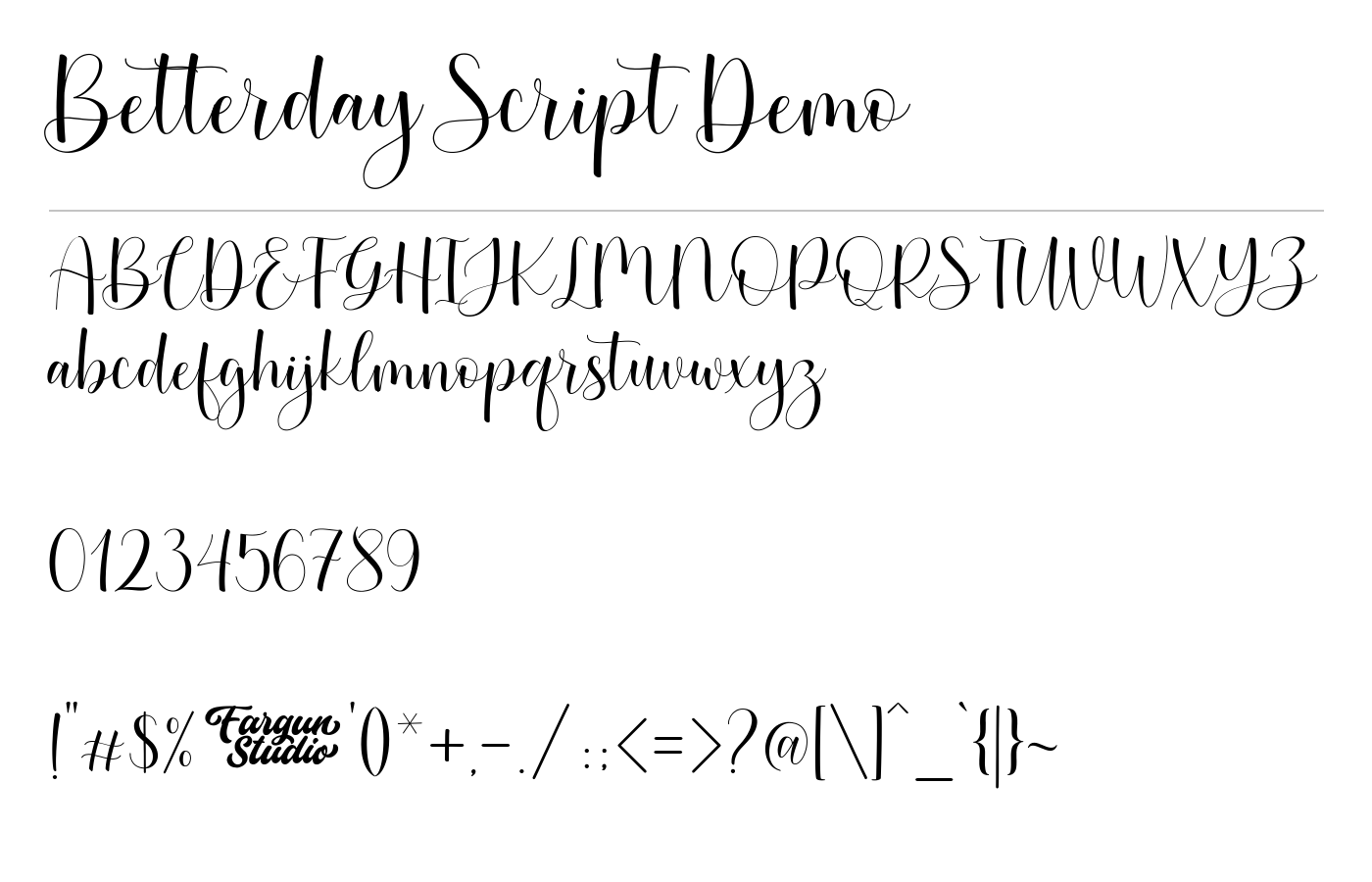
Betterday Script Demo is an elegant, modern script font with delicate, flowing strokes and a graceful, handwritten feel. Its light weight and airy letterforms, combined with stylish swashes and smooth curves, make it perfect for adding a touch of sophistication and charm to invitations, branding, and decorative headlines. This font works especially well in fashion, wedding, and lifestyle projects that seek a refined yet approachable look.
Betterday Script Demo Font
About Betterday Script Demo Font